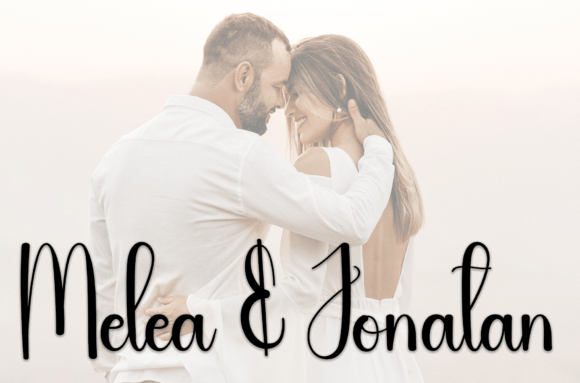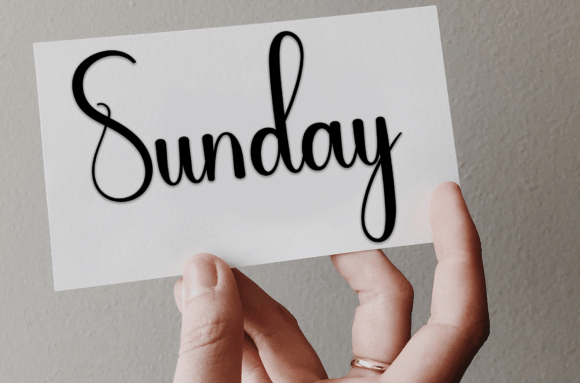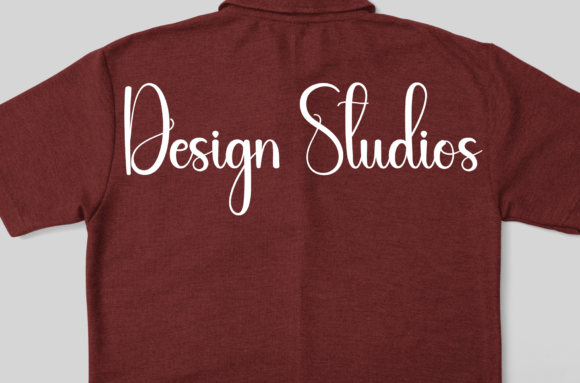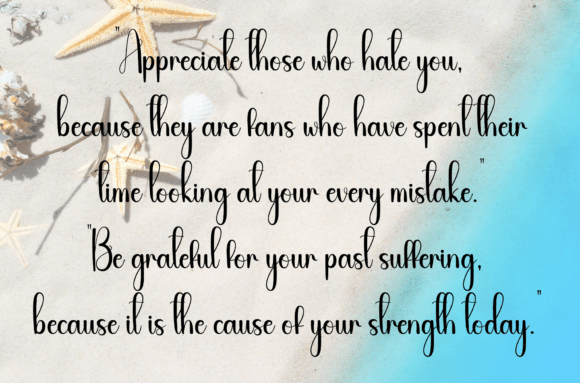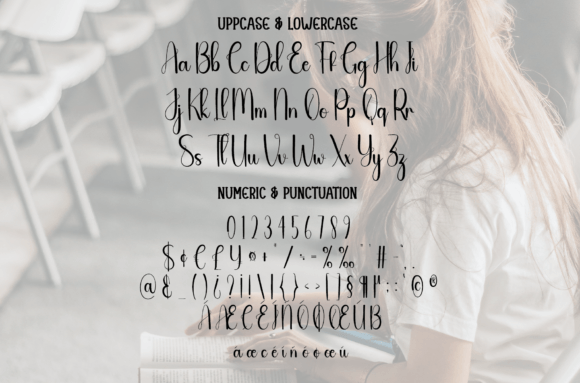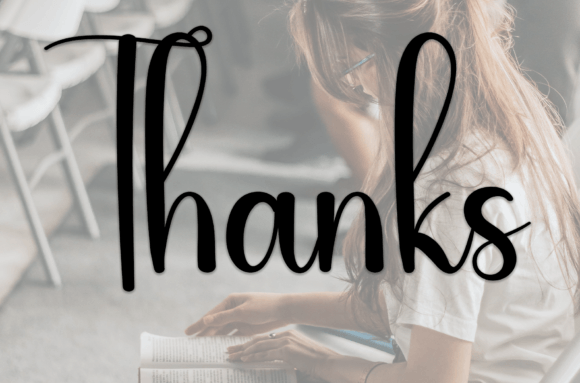
The Perfect Script: Unveiling the Bible Study Font
Who among us hasn’t found ourselves scribbling notes in a journal, brainstorming ideas in a sketchbook, or even doodling in the margins of a favorite novel? The creative process is full of moments like these – moments of freedom, of self-expression, and of pure joy. And sometimes, it’s in these fleeting moments that we stumble upon the perfect font to match our mood, our style, and our vision.
Enter the Bible Study Font, a sweet and friendly handwritten font that’s as versatile as it is charming. Designed to add a touch of whimsy and warmth to any design, this font is perfect for wedding invitations, greeting cards, and any other project that needs a little extra love. For designers, the Bible Study Font is a valuable asset – a reliable go-to for projects that require a delicate balance of elegance and playfulness.
Bible Study Font Key Features
- Font Family: Bible Study Font is a unique, custom-designed font family created specifically for biblical study and reading.
- Character Set: Includes a wide range of characters, including Latin, Greek, and Hebrew scripts, making it ideal for biblical study and research.
- Resolution: Optimized for high-resolution displays, making it perfect for digital devices and print materials.
- Unique Characteristics: Features a clear, readable design with subtle stylistic variations to help distinguish between different script types, making it easier to study and analyze biblical texts.
Bible Study Font Review
I’ve had the chance to work with the Bible Study Font, and here’s my honest take on it.
- The font is well-suited for reading and study purposes, making it ideal for academic and religious texts.
- The clear and concise letterforms make it easy to read, even at smaller font sizes.
- The font’s classic look gives it a timeless feel, fitting well with traditional and formal designs.
- The font’s versatility is somewhat limited, as it’s primarily designed for a specific niche (Bible study).
- The lack of bold and italic weights may make it less suitable for headings and emphasis.
- The font may not be as engaging for modern or trendy designs, as it has a somewhat traditional feel.
The Bible Study Font is a solid choice for its intended purpose. While it may not be the most exciting or versatile font, it’s well-suited for academic and religious texts. If you’re looking for a clear, easy-to-read font with a classic feel, the Bible Study Font is worth considering.
The Bible Study Font is commonly used in:
- Bible study materials, such as devotionals and study guides.
- Church bulletins and newsletters.
- Christian-themed graphics and designs.
Alternatives to Bible Study Font
Carolyna Pro is a modern, elegant serif font suitable for formal and informal use. It has a more refined and sophisticated look compared to Bible Study Font, making it ideal for church bulletins, wedding invitations, or other high-end materials.
Comparison: Carolyna Pro is more formal and refined than Bible Study Font, but may lack the classic, traditional feel of the original font.
Playfair Display is an elegant, high-end serif font perfect for special occasions and events. It features intricate details and ornate flourishes, making it suitable for wedding programs, graduations, or other celebratory materials.
Comparison: Playfair Display is more ornate and luxurious than Bible Study Font, but may be too flashy for everyday use.